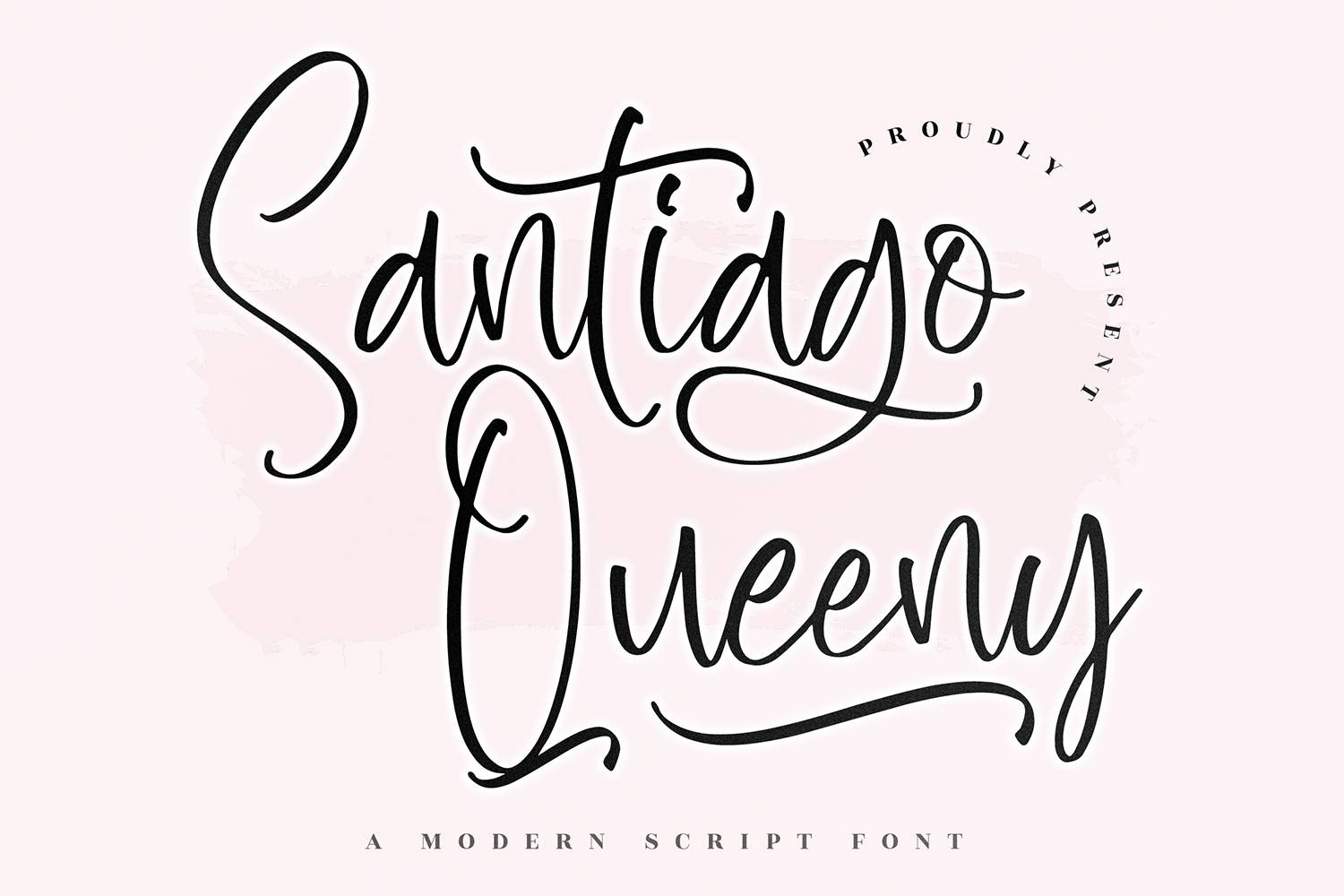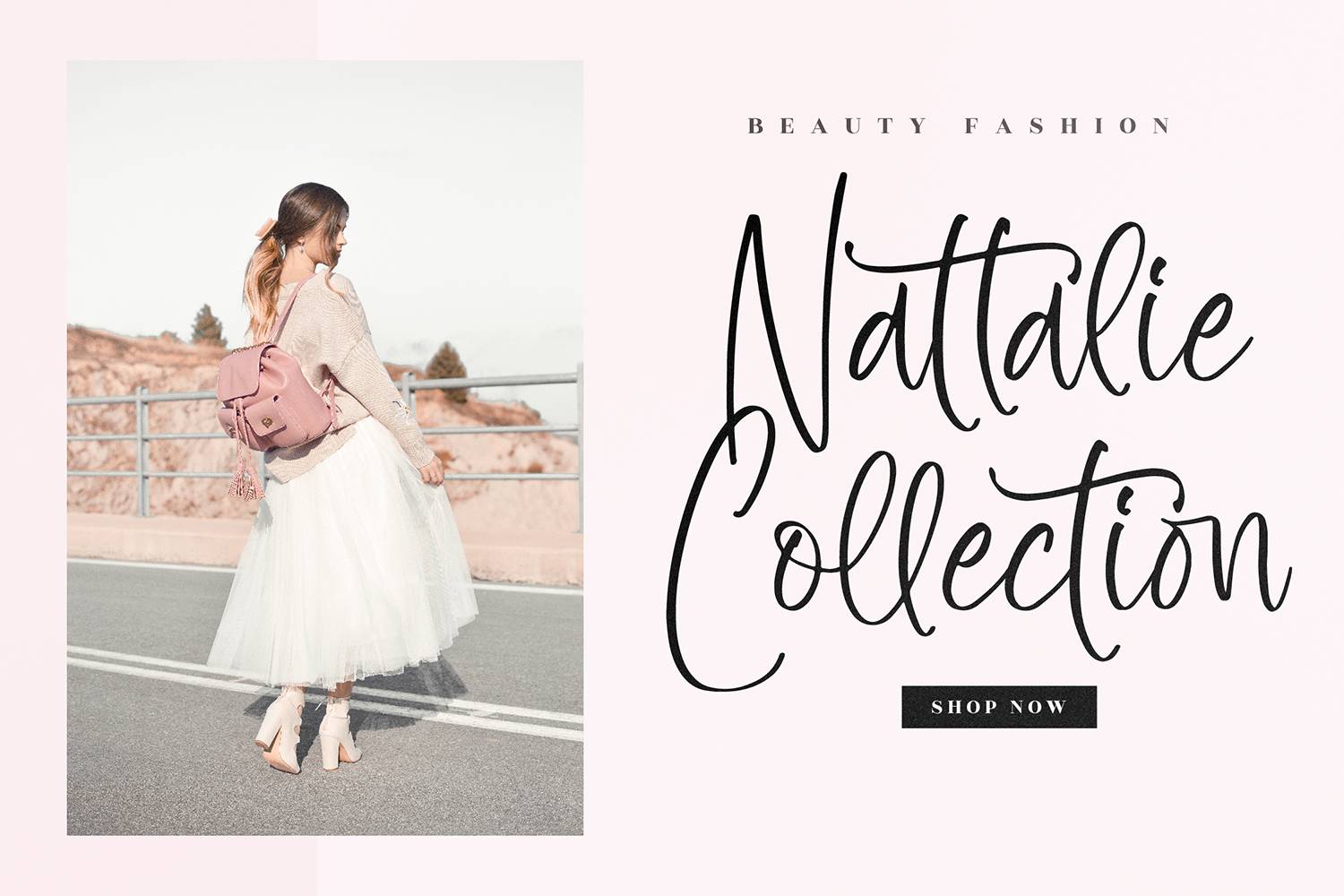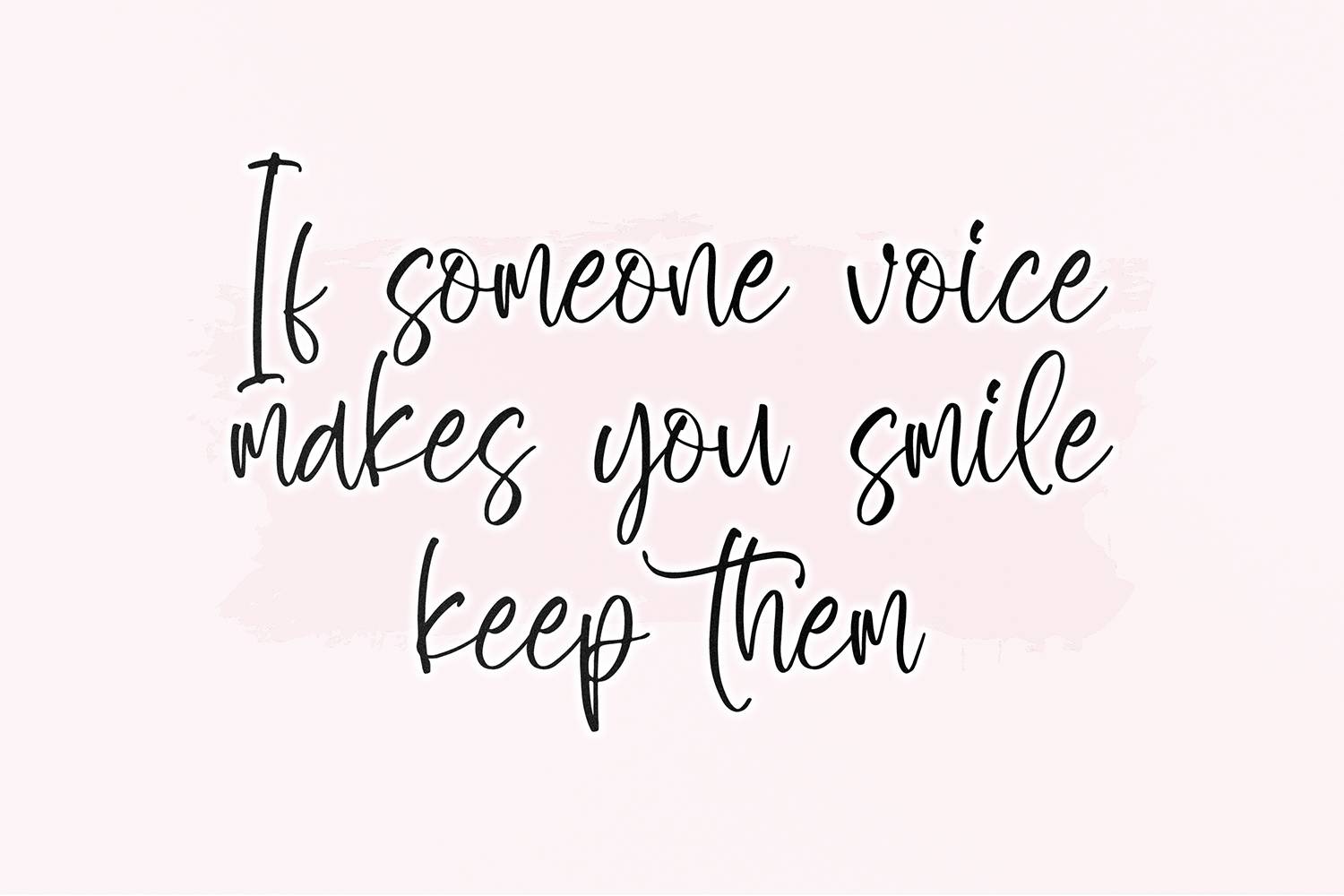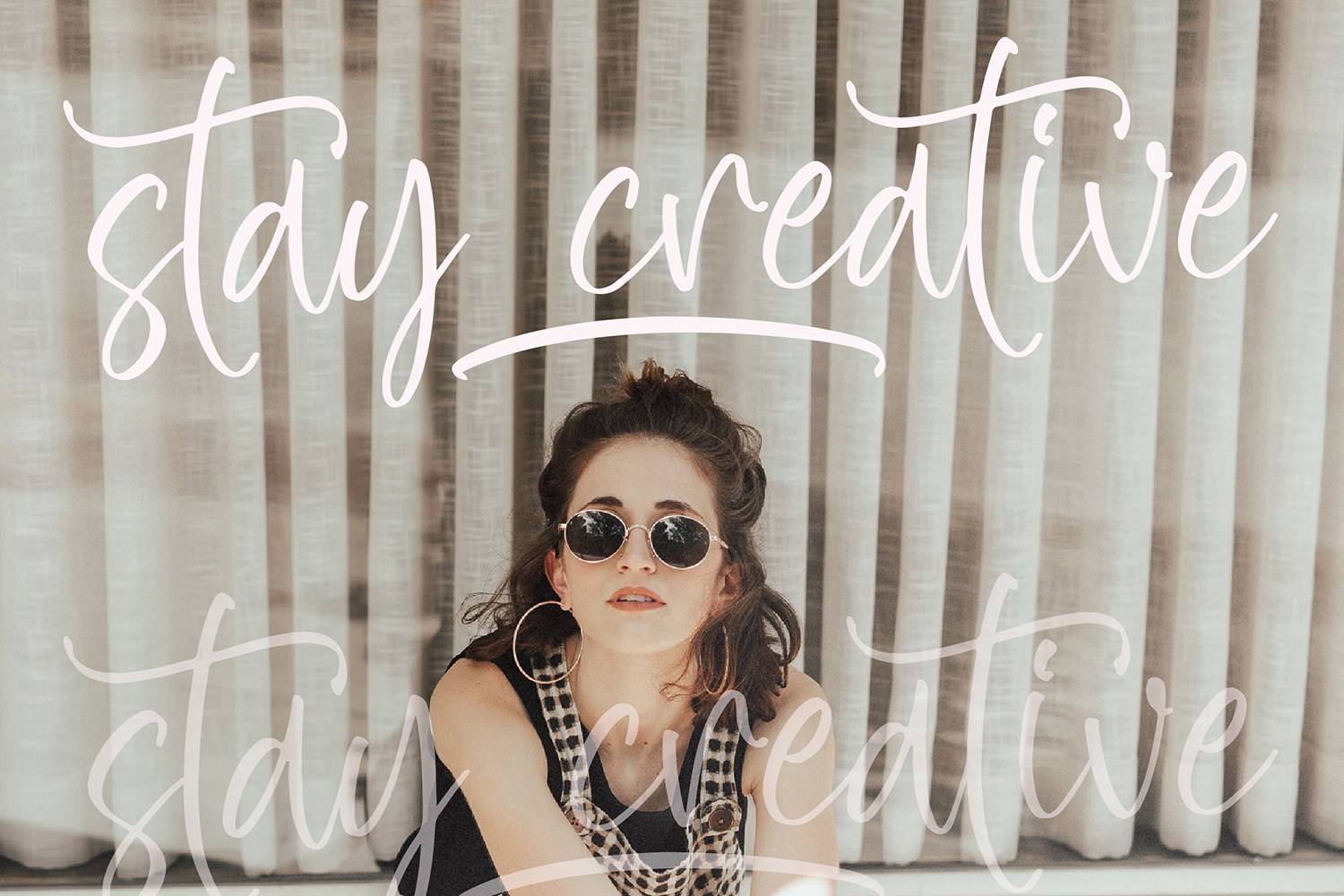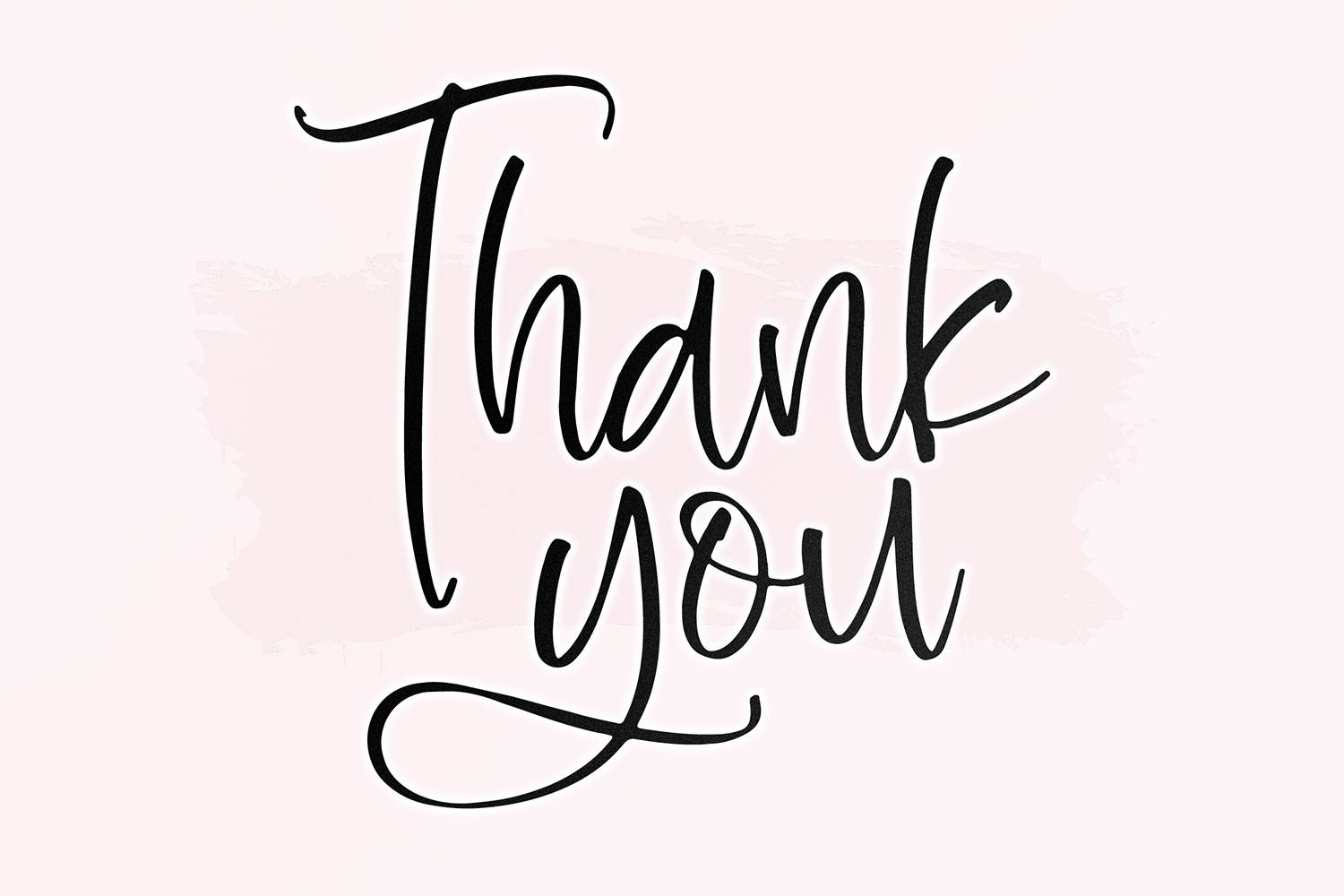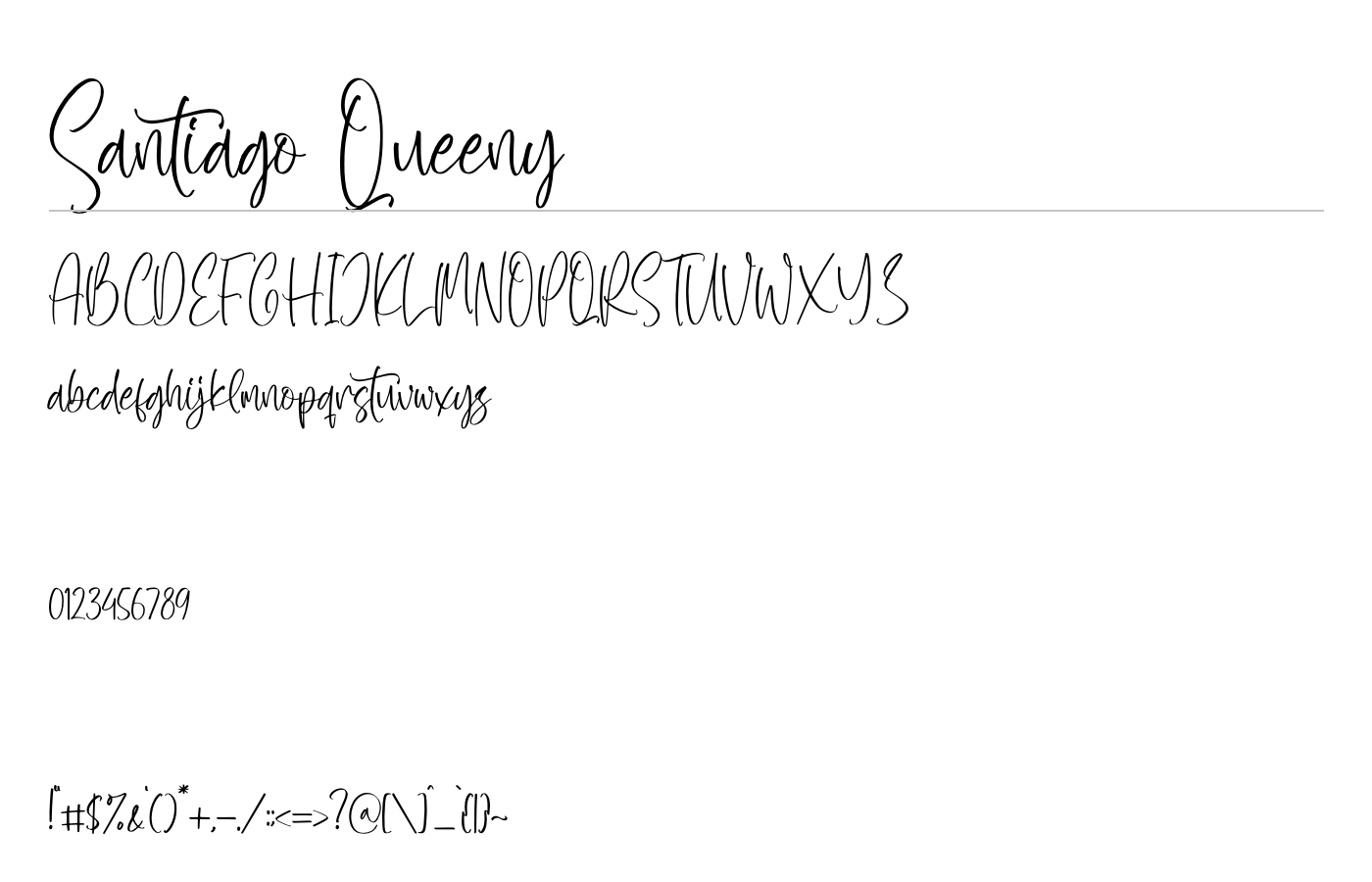
Santiago Queeny is a delicate, hand-drawn script font with a light weight and tall, narrow letterforms that create an elegant, airy feel. Its fine, flowing strokes and casual yet refined style make it perfect for creative branding, invitations, and stylish headlines that need a personal, artistic touch. This font works beautifully in designs seeking a modern, handwritten look that is both sophisticated and approachable.
Santiago Queeny Font
About Santiago Queeny Font